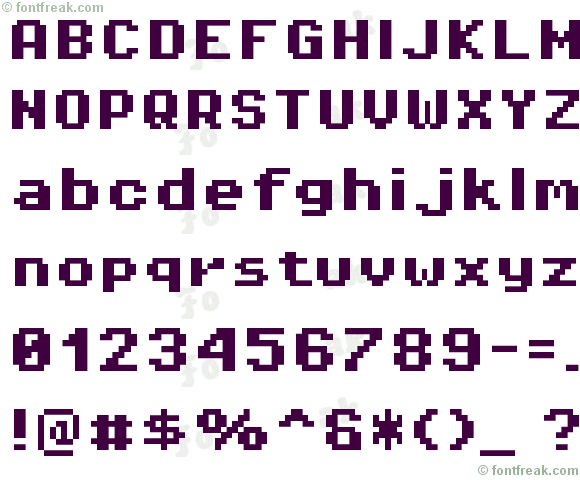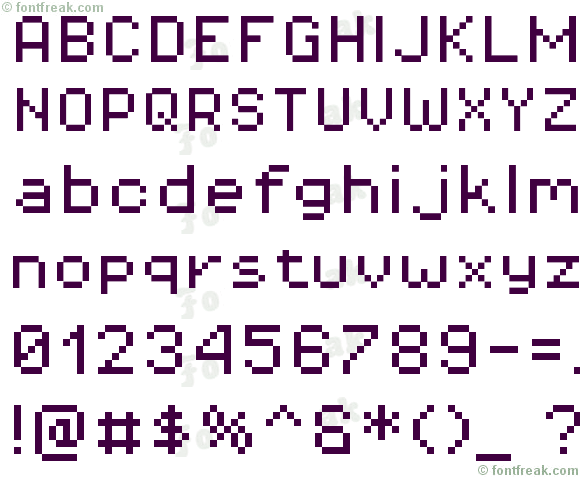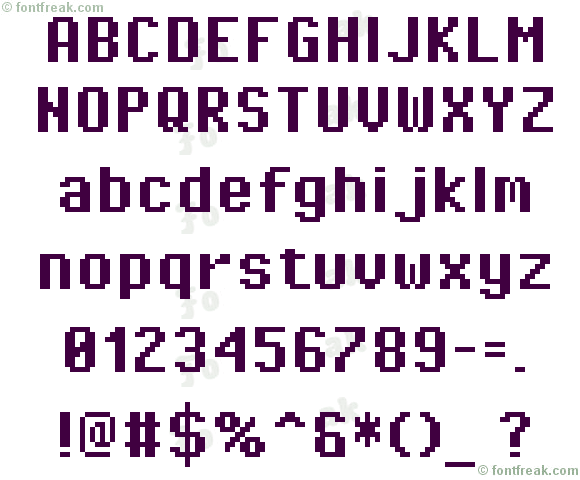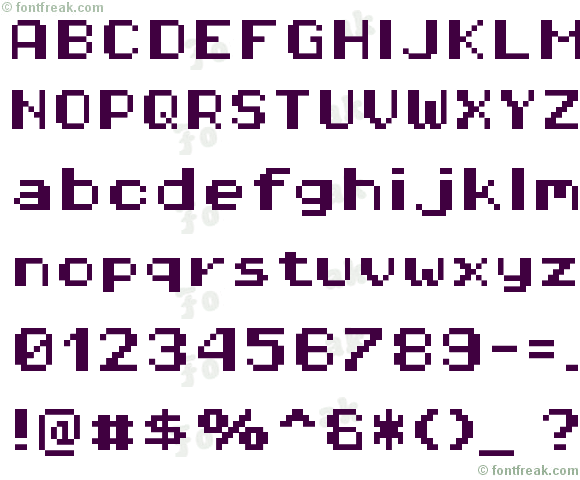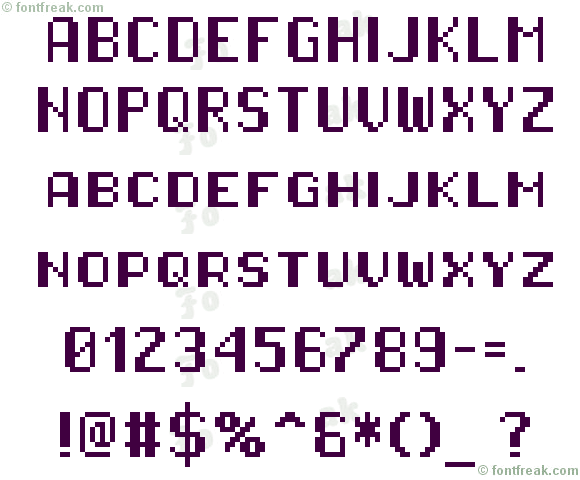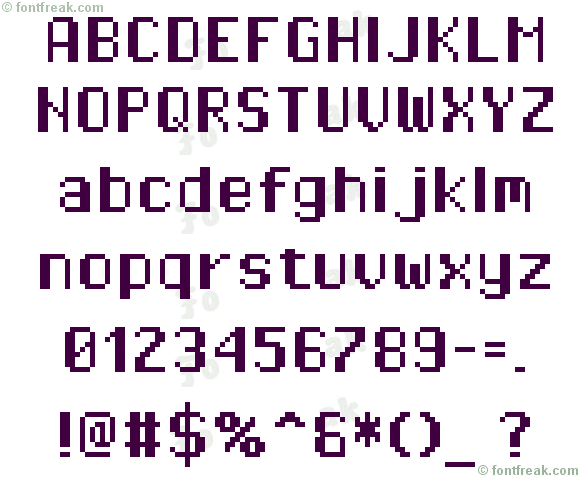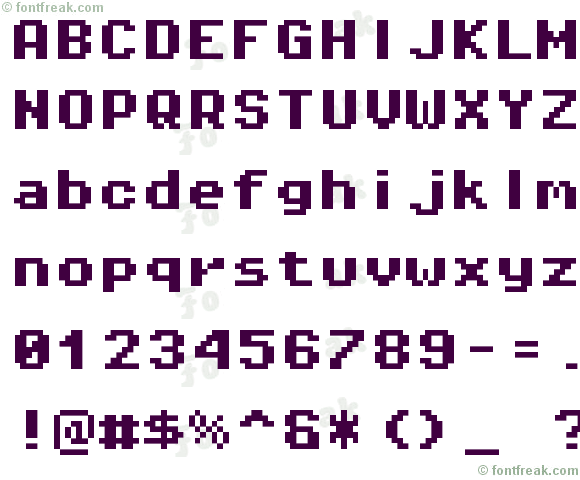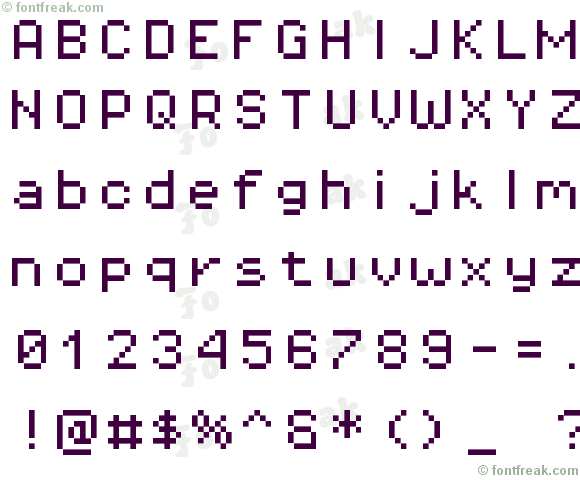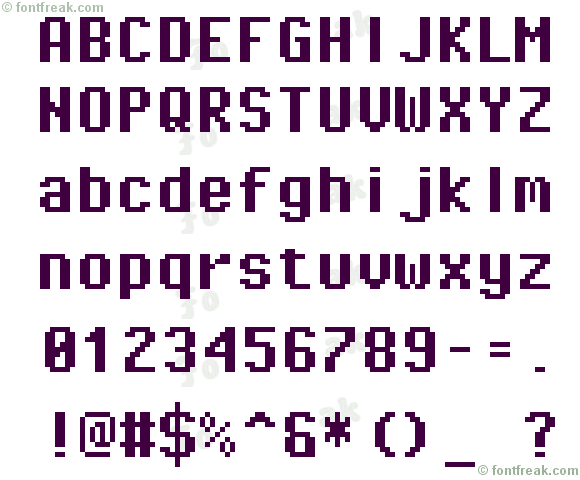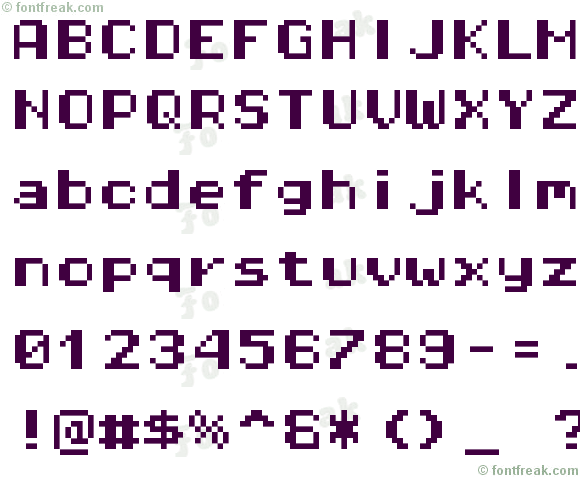
Pixel Operator
Pixel Operator Bold
Pixel Operator HB
Pixel Operator Mono
Pixel Operator 8 Bold
Pixel Operator Mono 8 Bold
Pixel Operator Mono HB 8
Pixel Operator HB 8
Pixel Operator HB SC
Pixel Operator Mono HB
Pixel Operator SC Bold
Pixel Operator 8
Pixel Operator Mono 8
Pixel Operator SC
Pixel Operator Mono Bold
Pixel Operator, designed by Jayvee Enaguas, is a striking display font that draws inspiration from the aesthetic of pixel art and retro computing. This font falls into the decorative category, showcasing a distinct pixelated style that is both bold and whimsical. The stroke weight is consistent throughout, offering a uniform appearance that enhances its retro charm. The spacing between characters is thoughtfully considered, providing clarity while maintaining a cohesive look that evokes nostalgia for early digital graphics.
Pixel Operator is versatile and can be effectively used in various contexts. It is an excellent choice for video game graphics, where its pixelated nature can enhance the overall visual experience. Additionally, it works well in tech-themed websites, capturing the essence of digital innovation. Graphic designers may find this font ideal for posters that aim to evoke a sense of nostalgia or playfulness. It can also be used in branding for retro-themed cafes or restaurants, adding a unique touch to menus and signage. Content creators looking to give their projects a distinctive flair will appreciate its eye-catching appearance.
What sets the Pixel Operator font apart is its ability to blend nostalgia with modern design sensibilities. Its pixelated form not only serves as a visual statement but also resonates with audiences familiar with the digital age's aesthetics. For anyone looking to elevate their designs, the Pixel Operator font is a fantastic option, available for free download and ready to bring a playful edge to any creative endeavor.